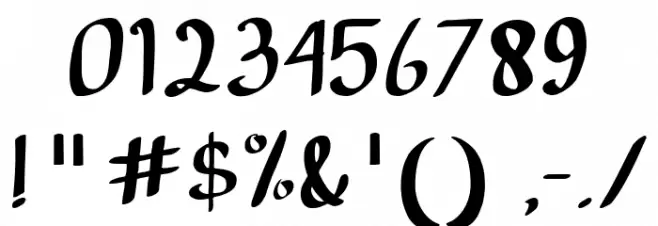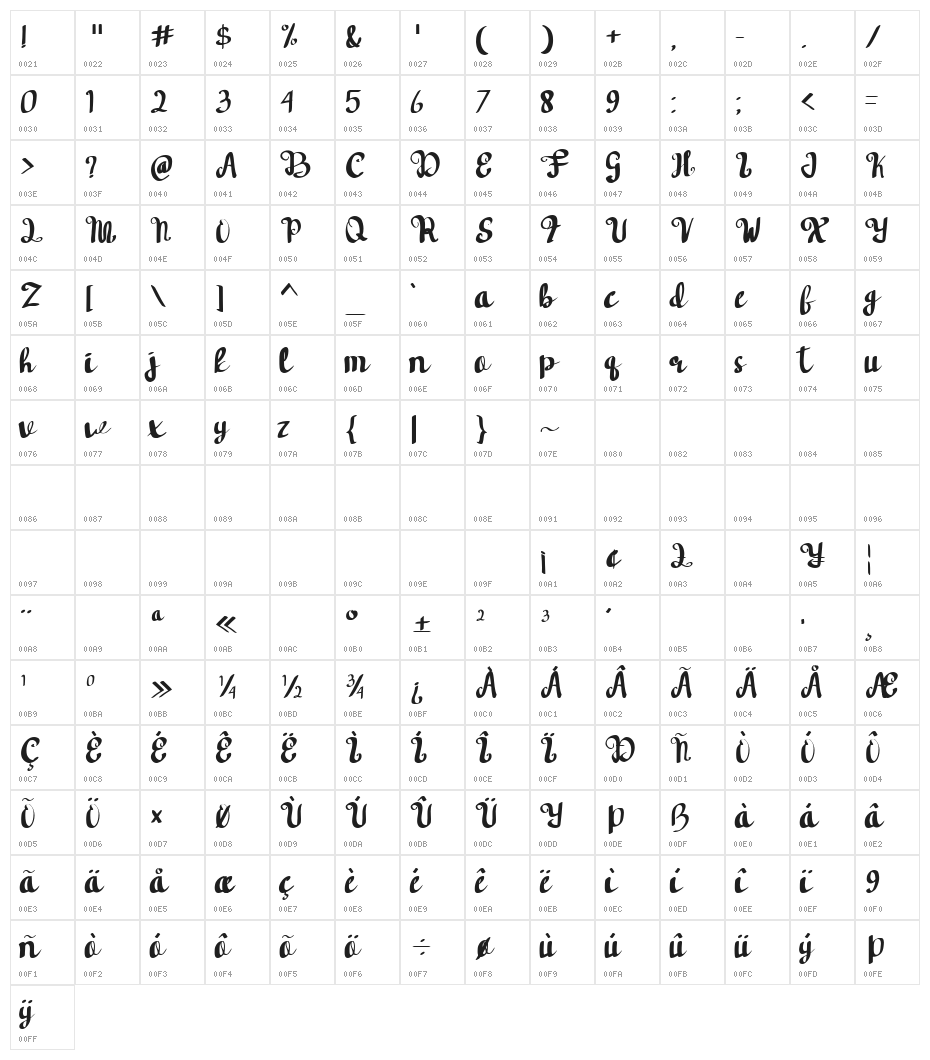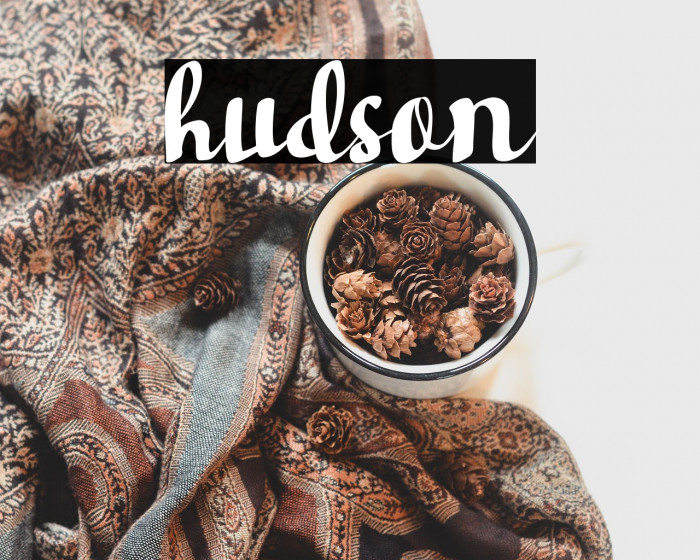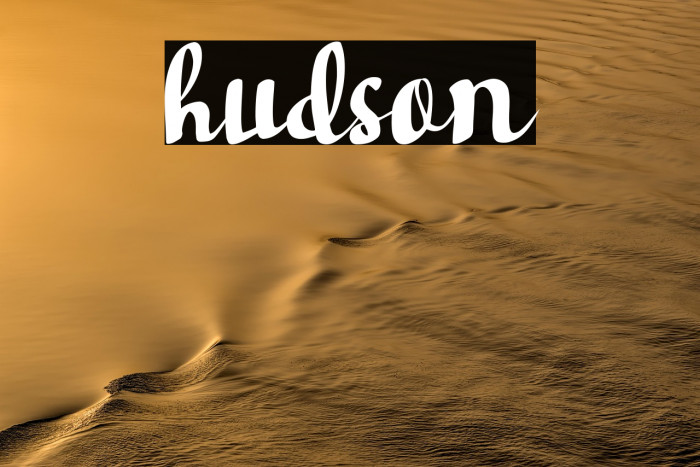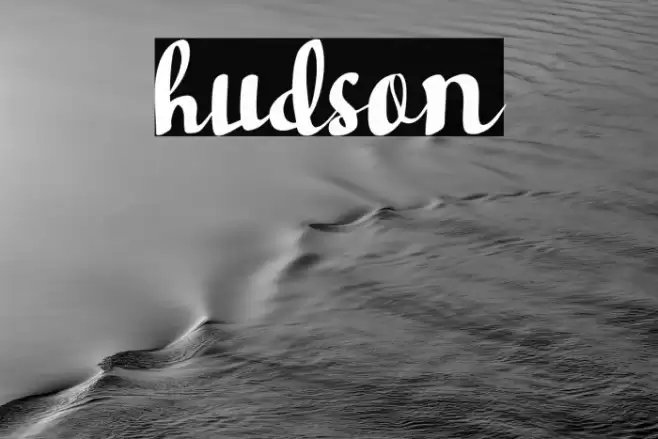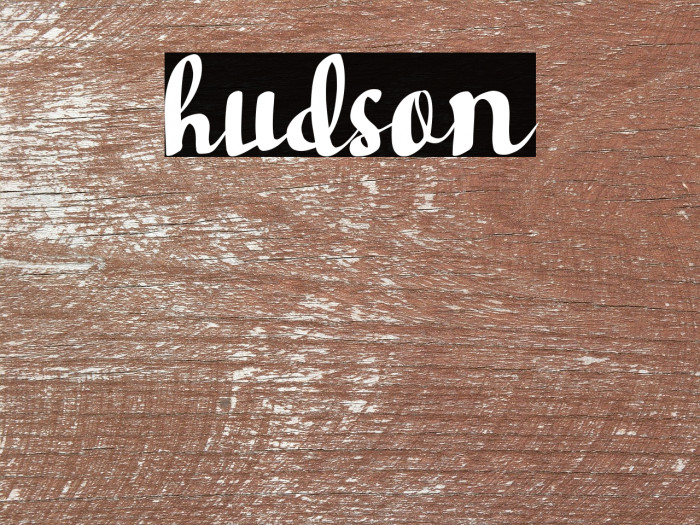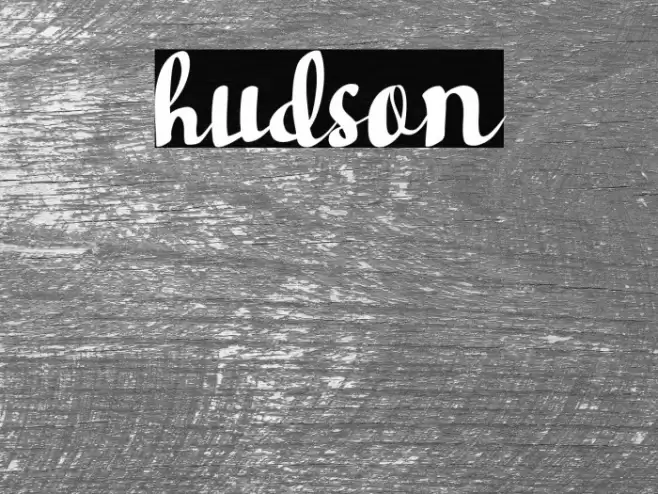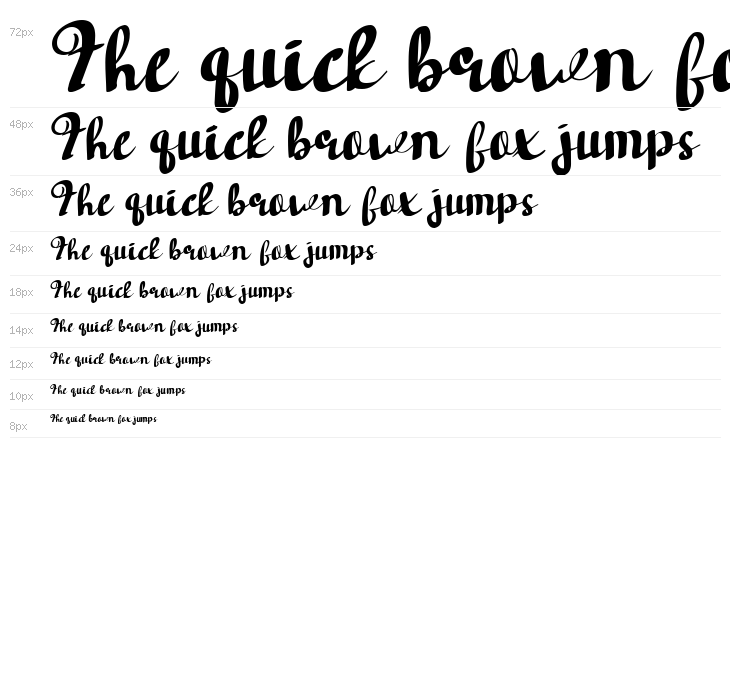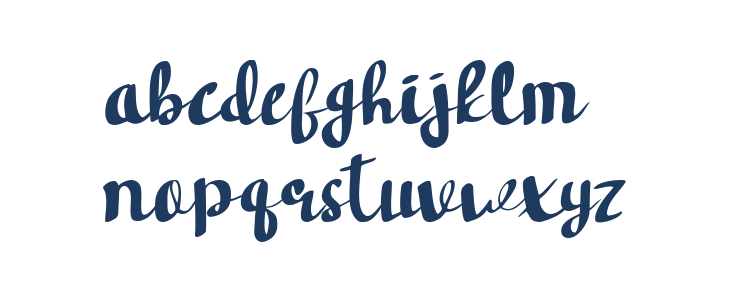
hudson Font
hudson Description
This font features a bold and expressive script style, characterized by its flowing, cursive letterforms. The uppercase letters are ornate and dynamic, with a playful yet elegant flair. Lowercase letters maintain a consistent rhythm, enhancing readability while preserving the decorative nature. Numbers and special characters are crafted with the same attention to detail, ensuring a cohesive look across all text elements. The thick strokes and smooth curves give it a strong presence, making it ideal for eye-catching designs. Its unique style blends traditional calligraphy with a modern twist, making it versatile for various creative applications.
| Proposed Projects | Ideal for branding, invitations, greeting cards, and decorative headlines. |